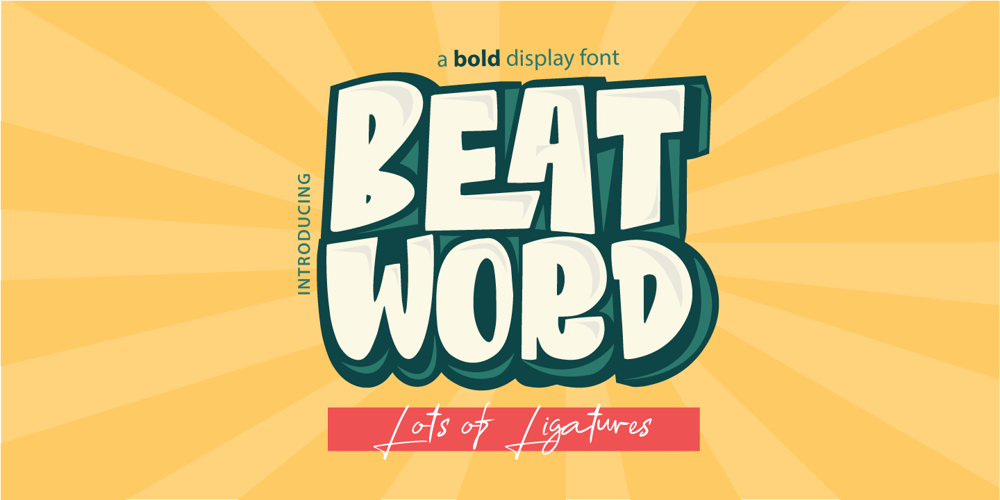
Beat Word Font Family was designed by Degi Kurniawan and published by D&K Project. Beat Word contains 2 styles and family package options. Beat Word a very fun font to use, mixed with alternates and ligatures, and will make your work really fun. This font is really the vintage cartoon style you need combine with ligature and alternate feature the way you want, because it is a very powerful font with a fun alternates and ligatures.